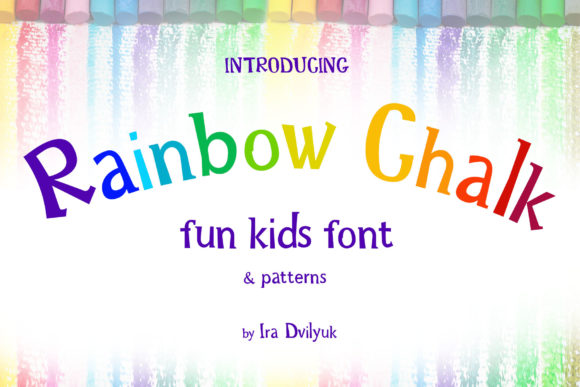
Embark on a colorful journey with Rainbow Chalk, the enchanting serif font that will add a touch of whimsy and cheer to your creative projects. This playful font dances with joy, making it ideal for crafting designs that radiate happiness and fun. Whether you're creating a children's book, designing invitations for a joyous occasion, or adding a playful twist to your brand's identity, Rainbow Chalk is your perfect companion. With its charming curves and vibrant energy, this font captures the magic of childhood and brings a smile to the faces of all who encounter it.
Dive into the world of limitless creativity with Rainbow Chalk. Its versatility knows no bounds, allowing you to create designs that speak to your unique style and vision. From eye-catching headlines to heartfelt messages, Rainbow Chalk effortlessly captivates attention and leaves a lasting impression. Unleash your imagination and let this font guide you on an adventure where colors dance and joy fills the air.
As an added treat, Rainbow Chalk comes with a collection of delightful seamless borders, patterns, and frame designs. These elements are the perfect finishing touches to your projects, adding an extra layer of charm and cohesion. Let your creativity soar as you mix and match these elements to create truly captivating designs that will leave your audience spellbound.